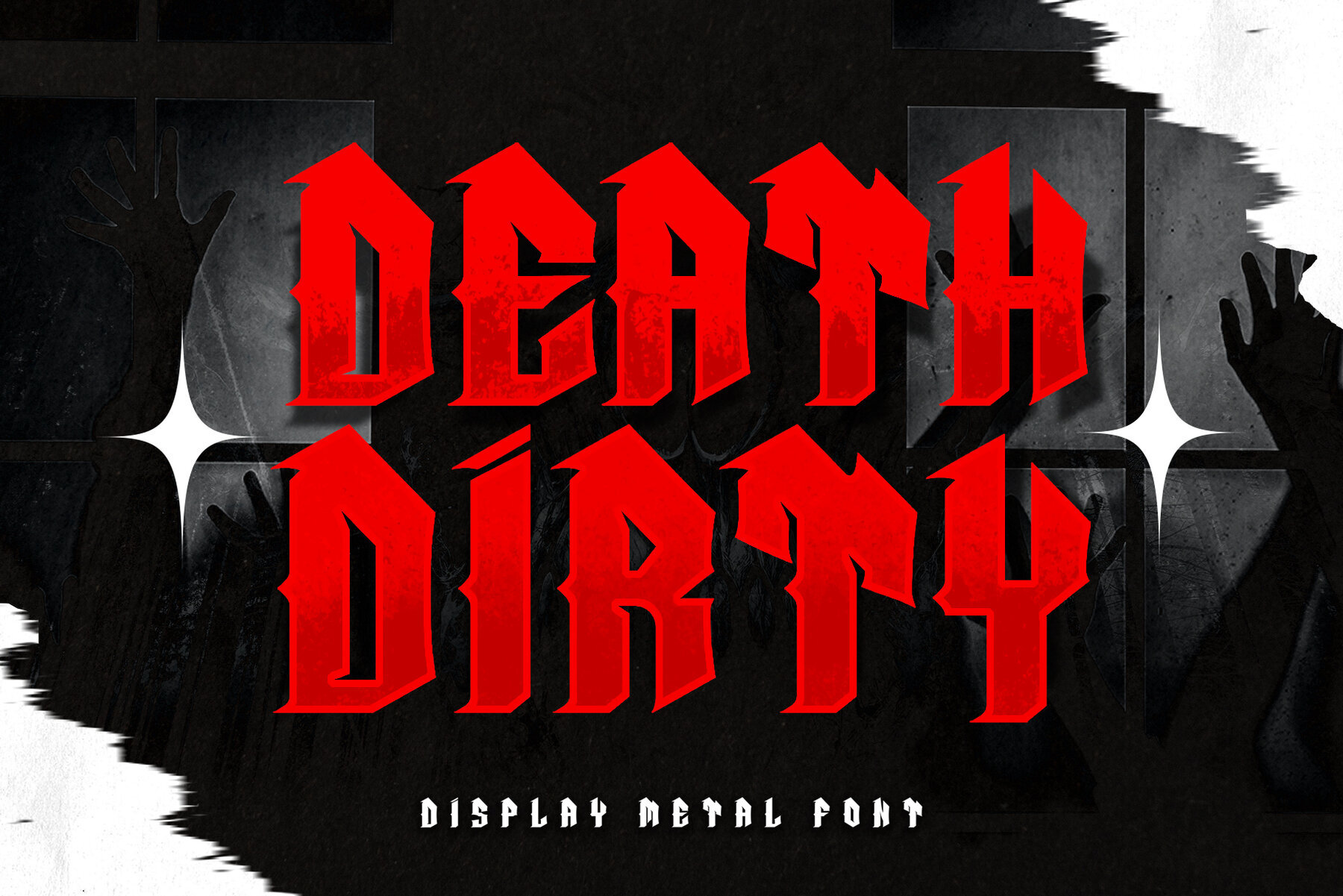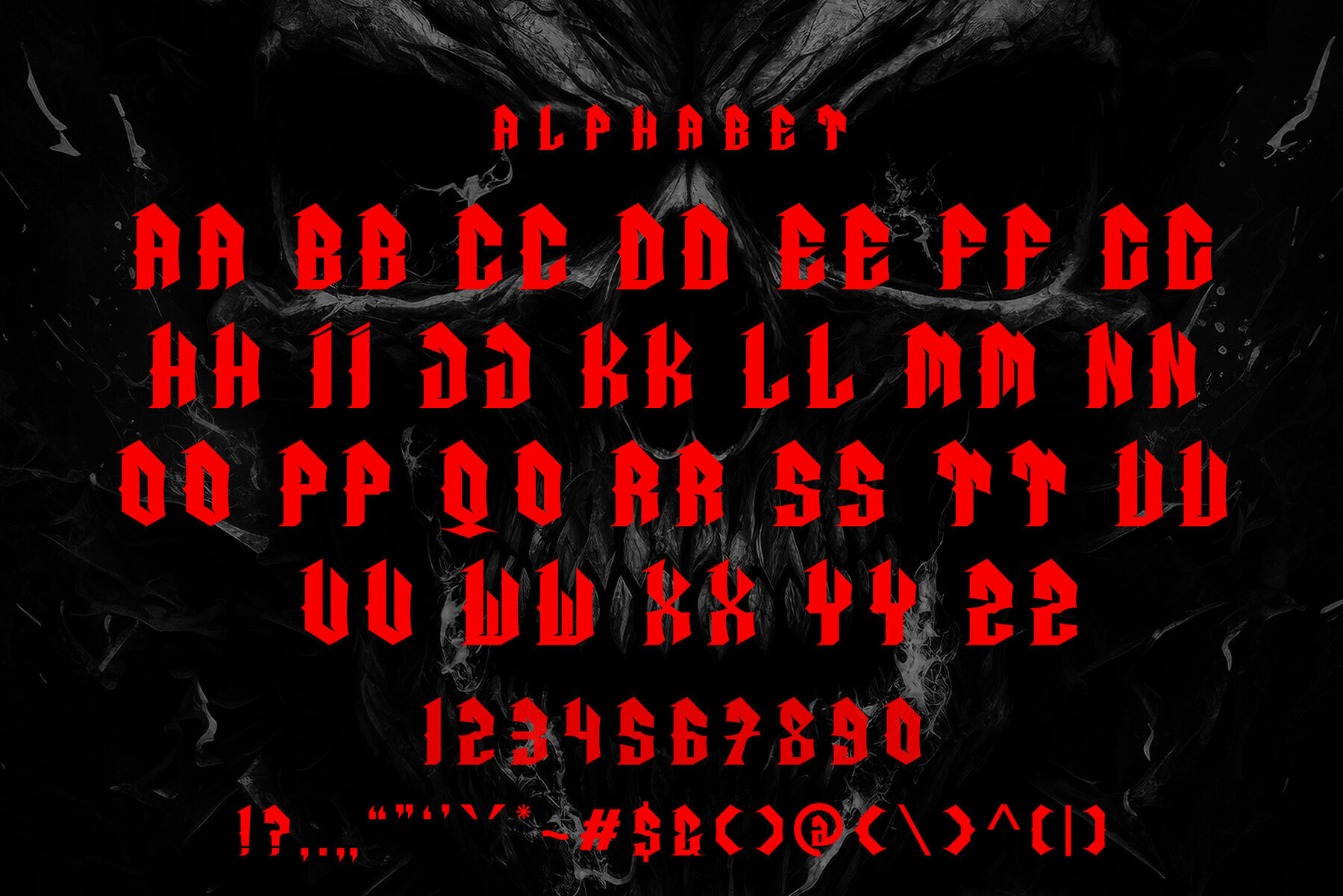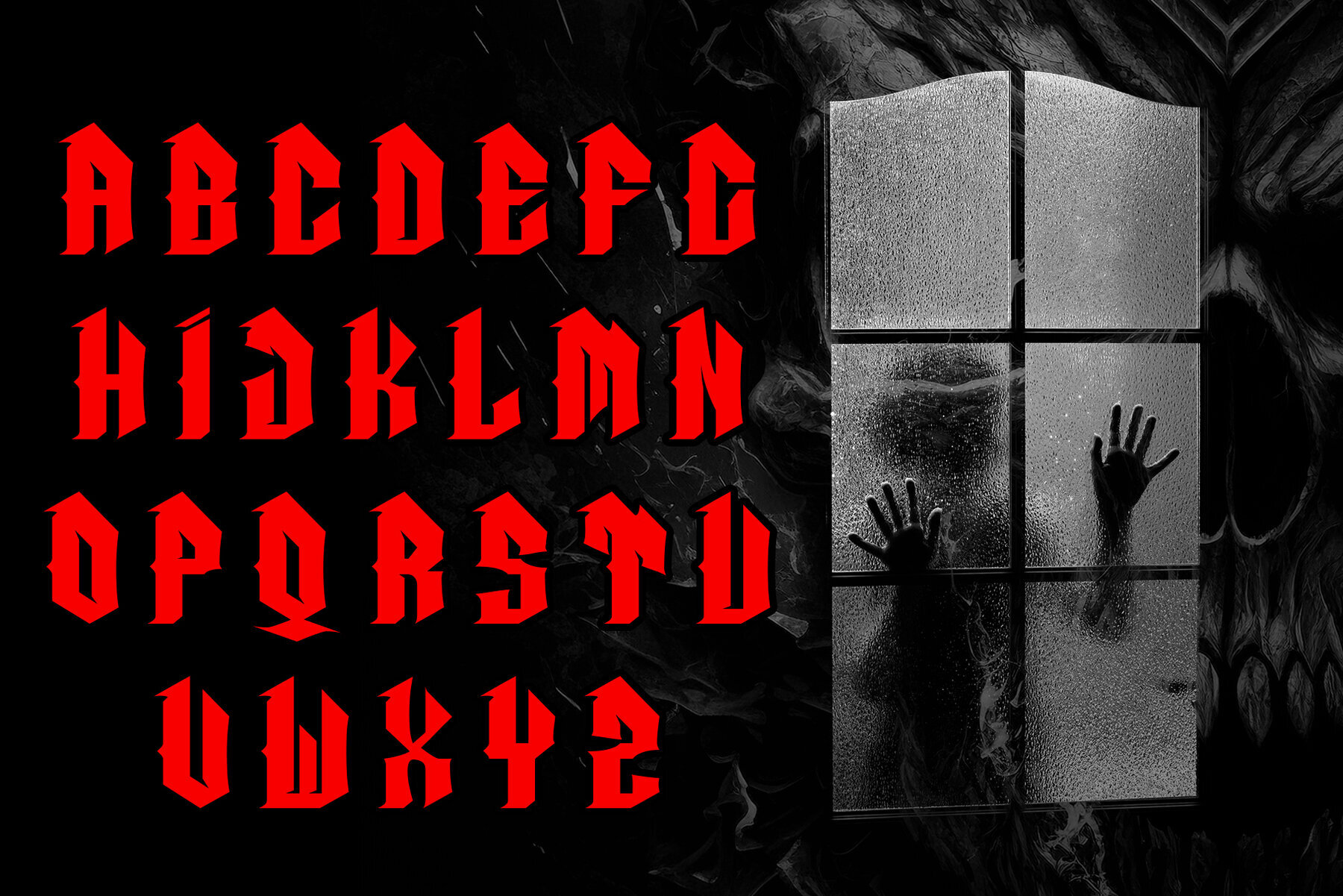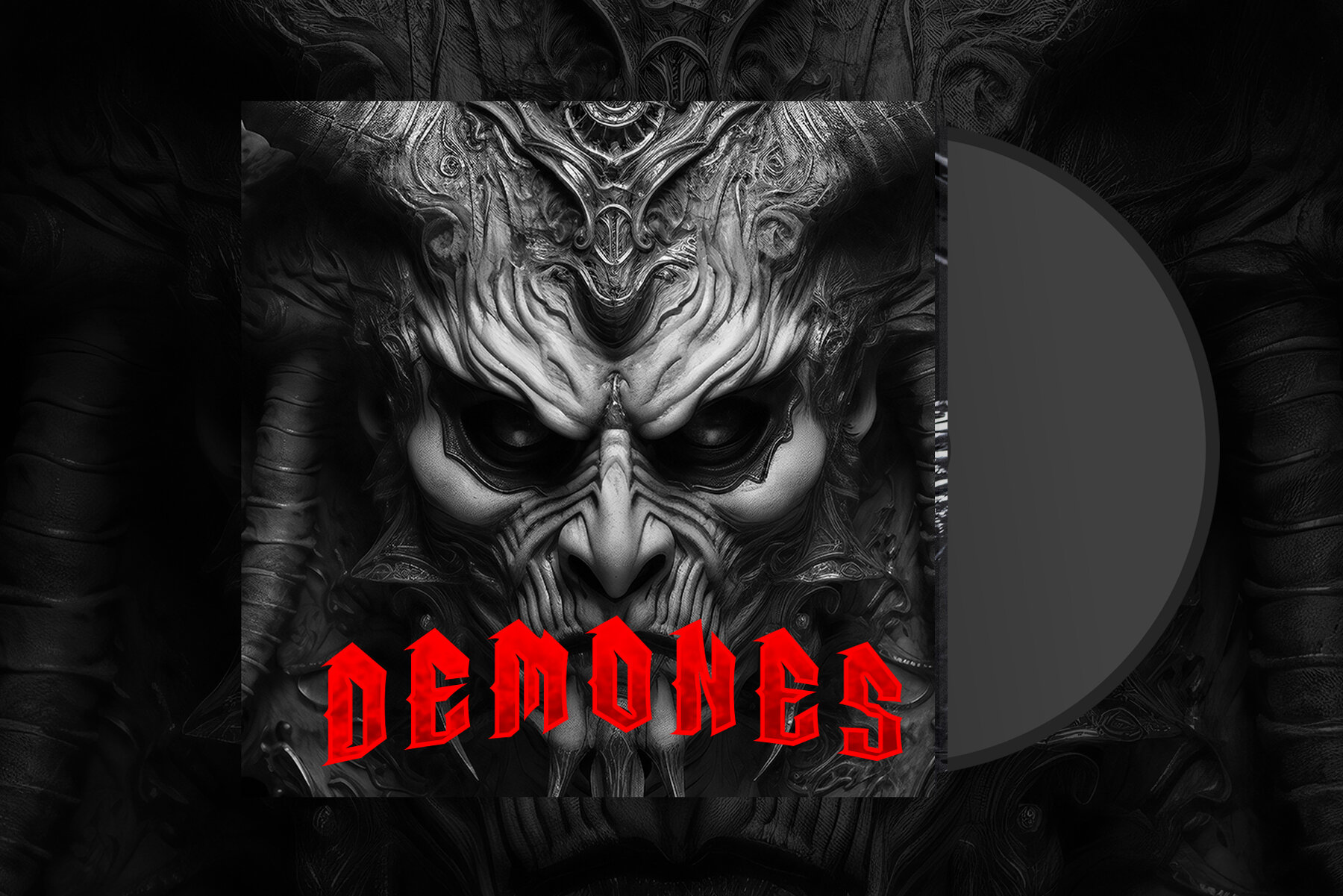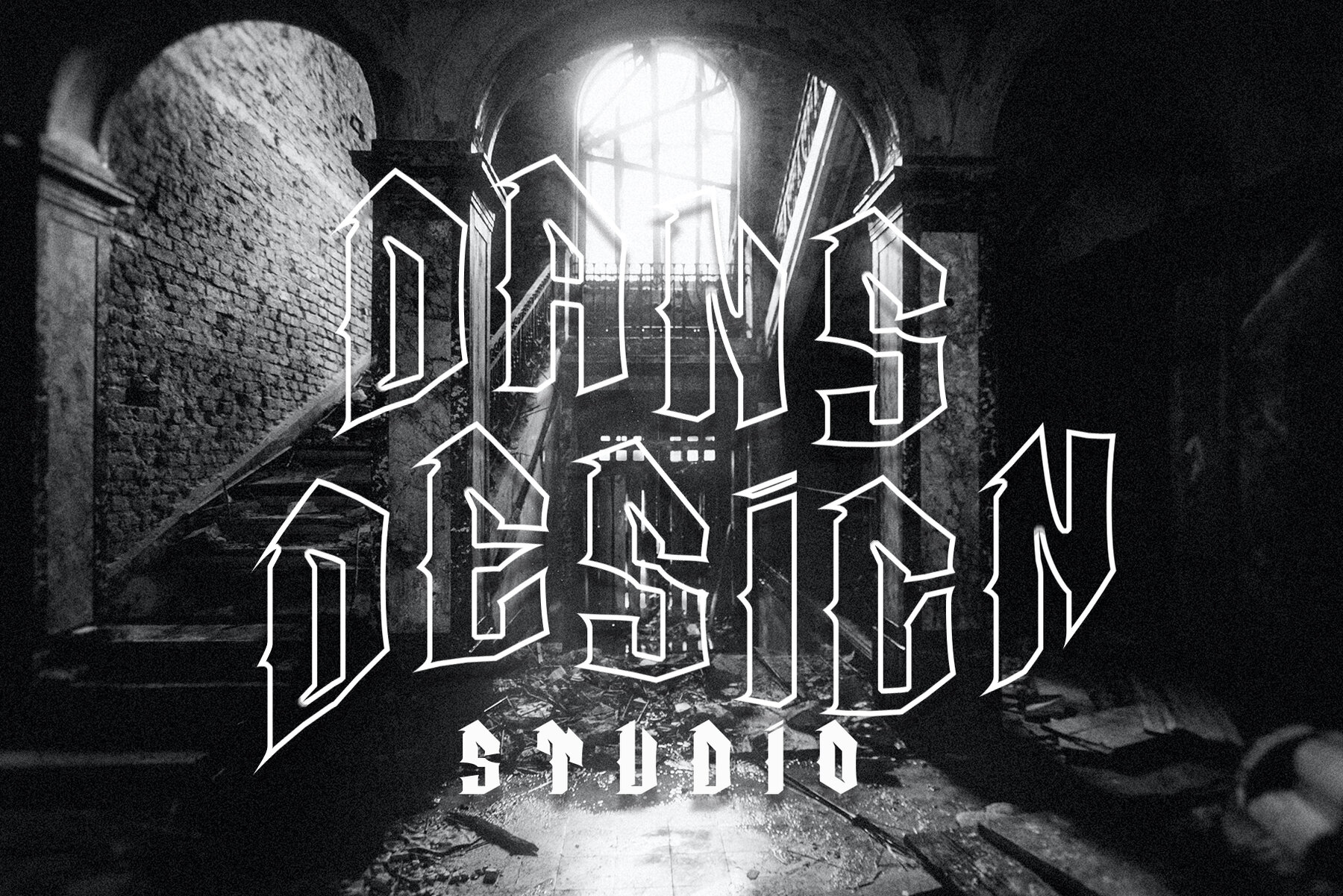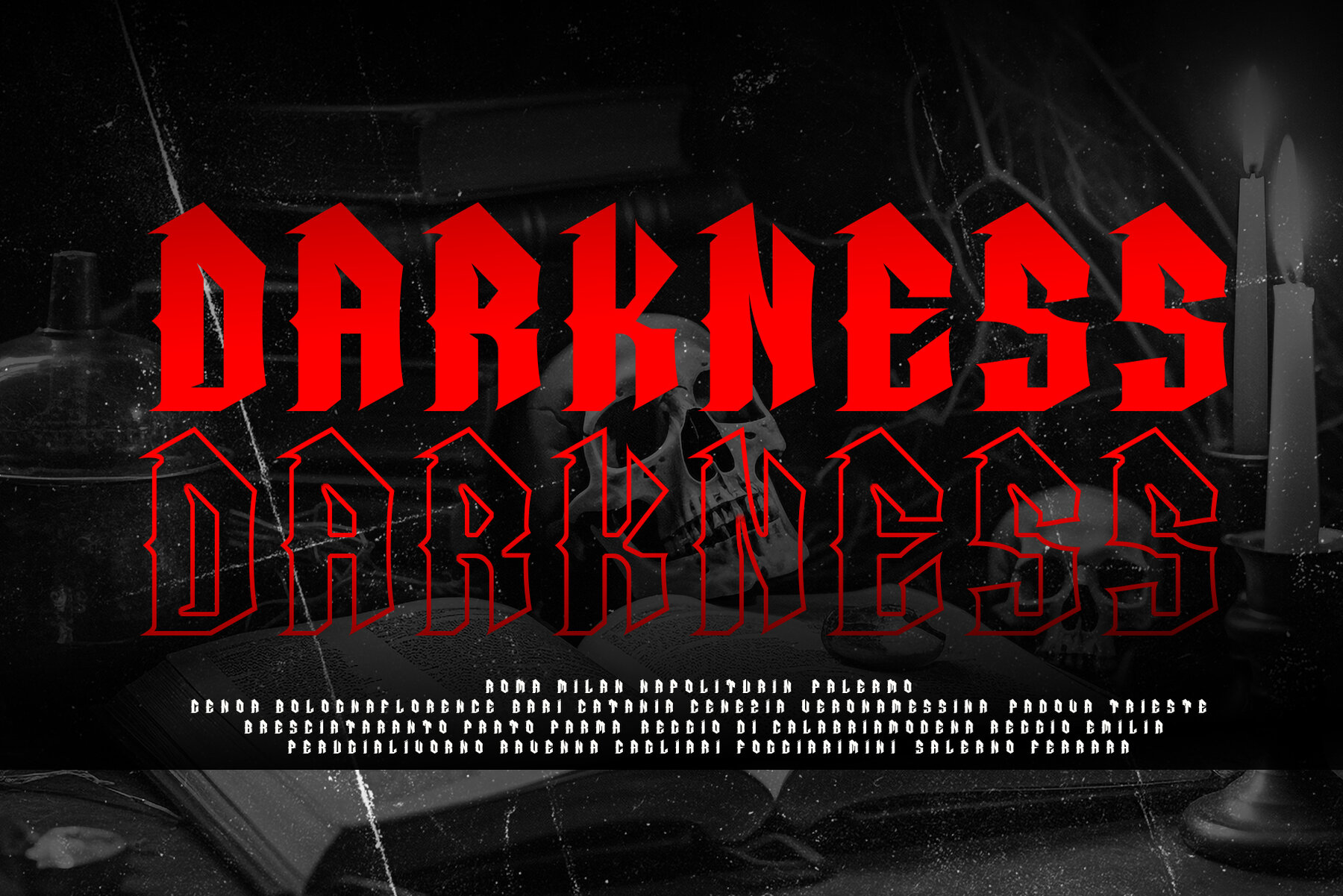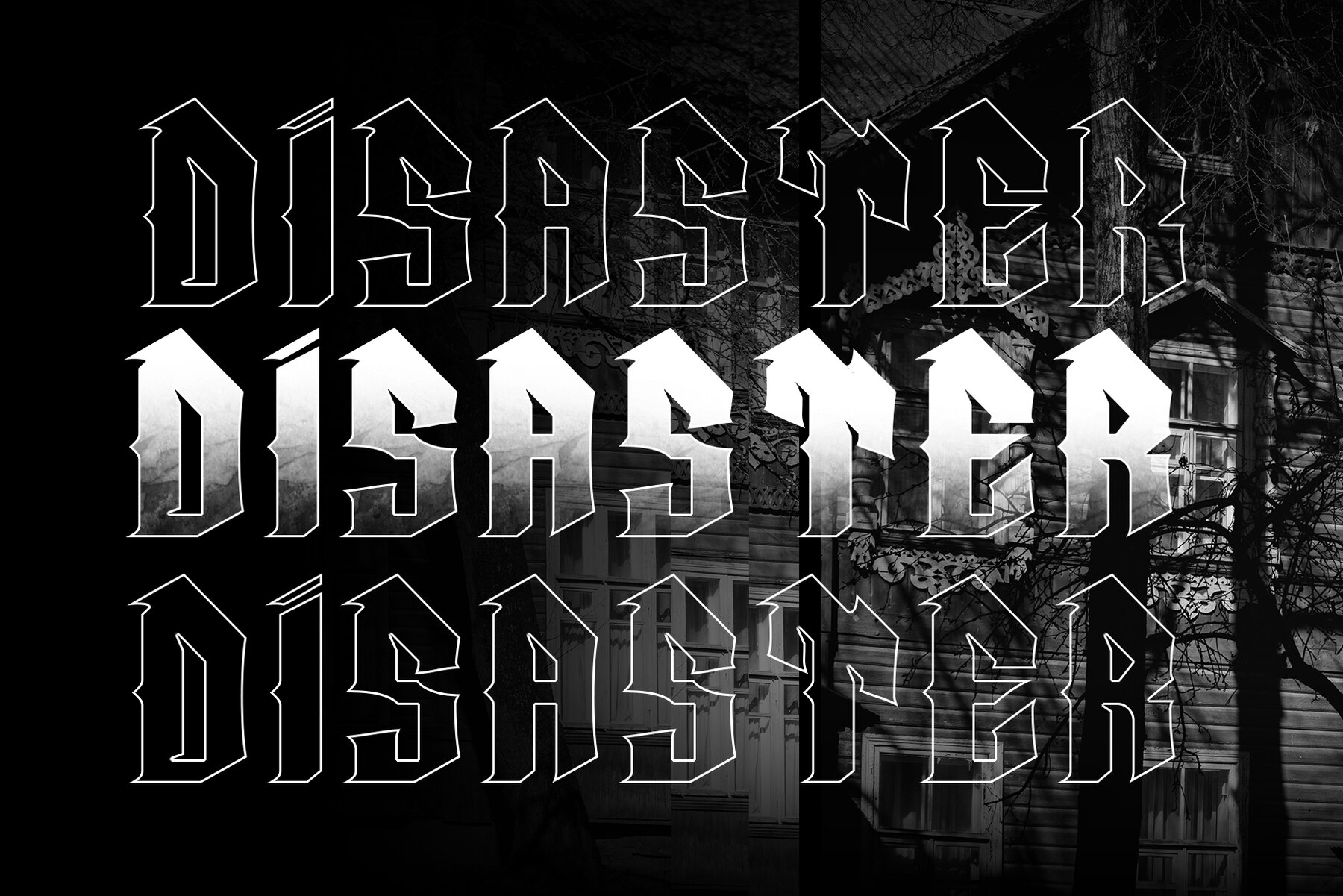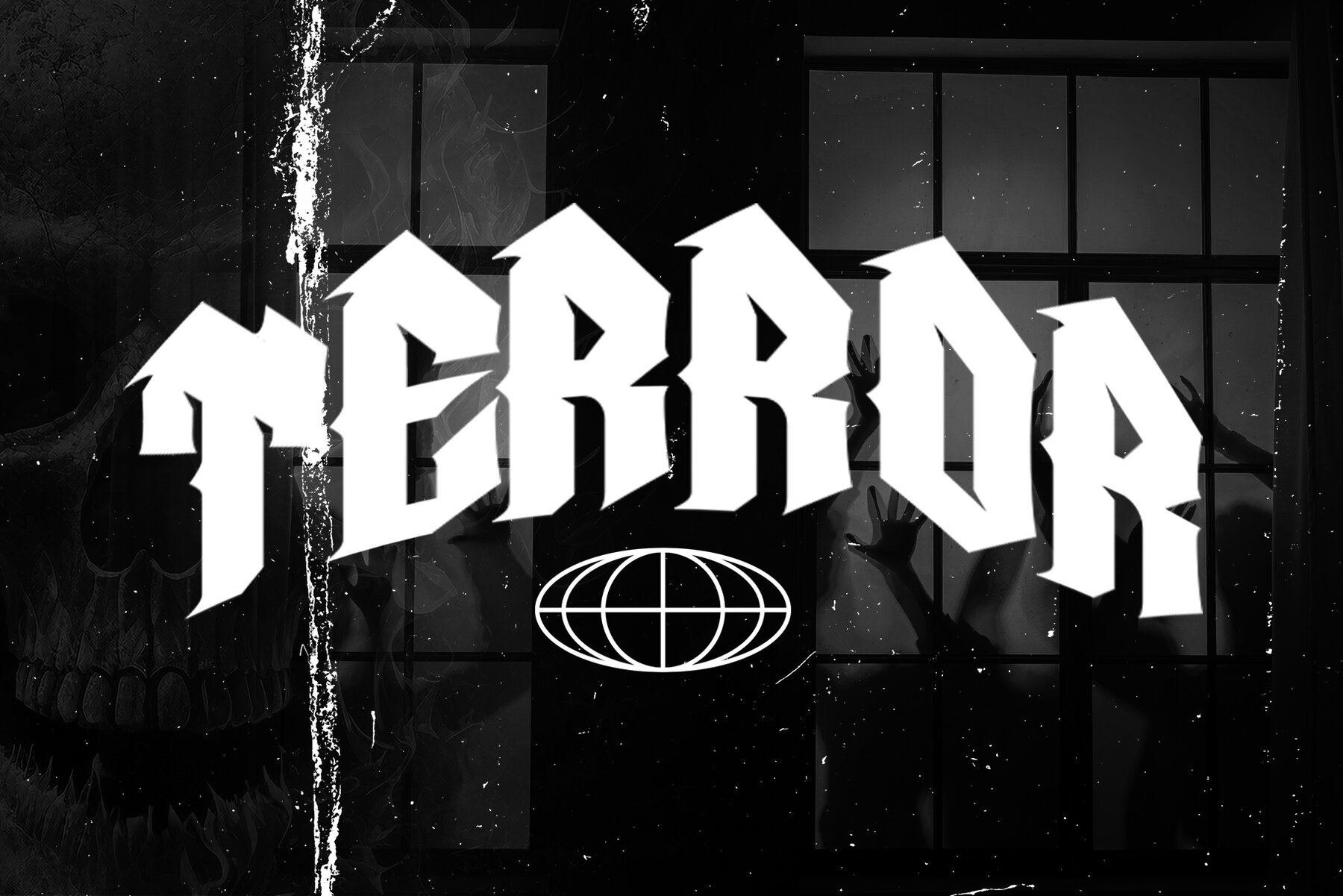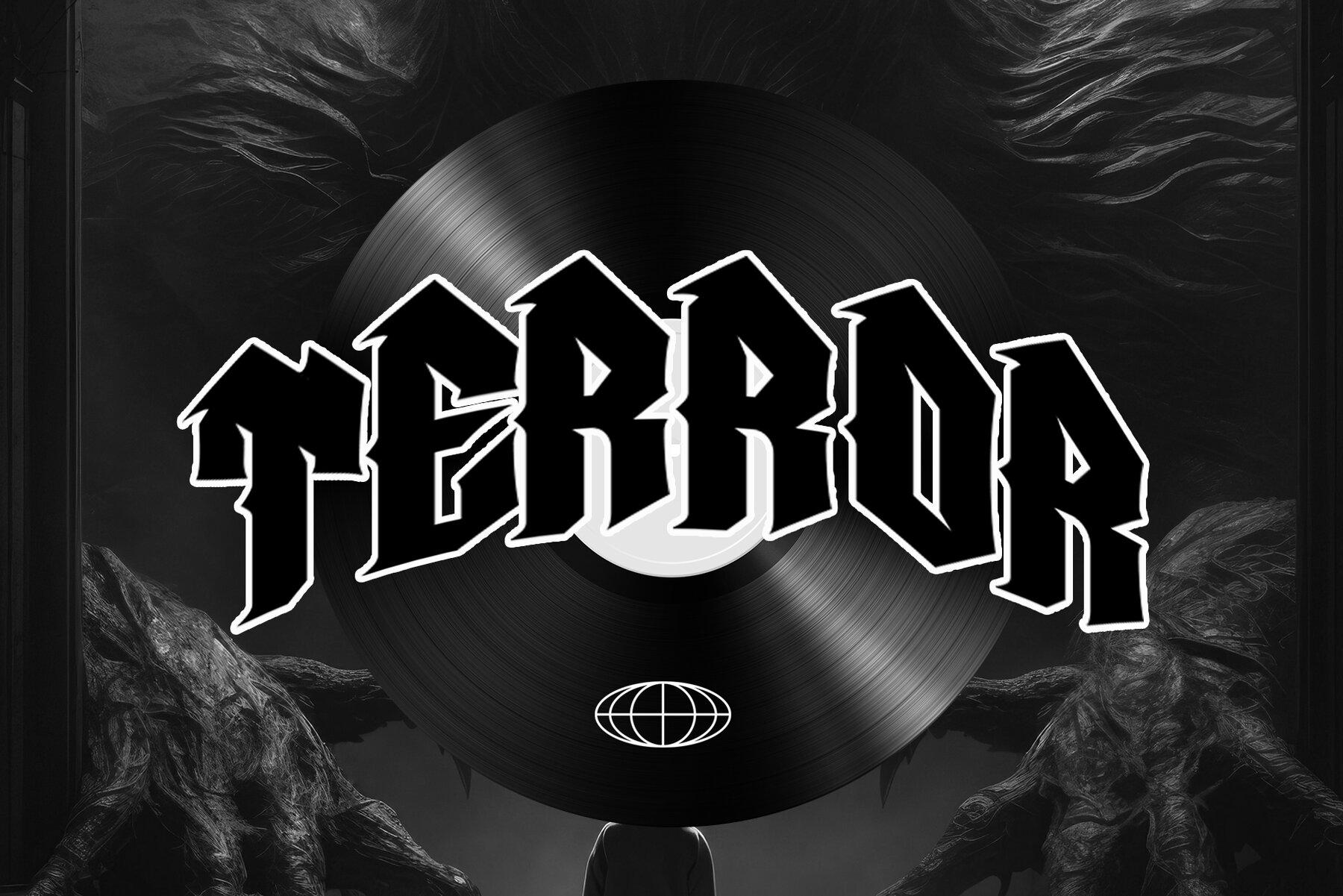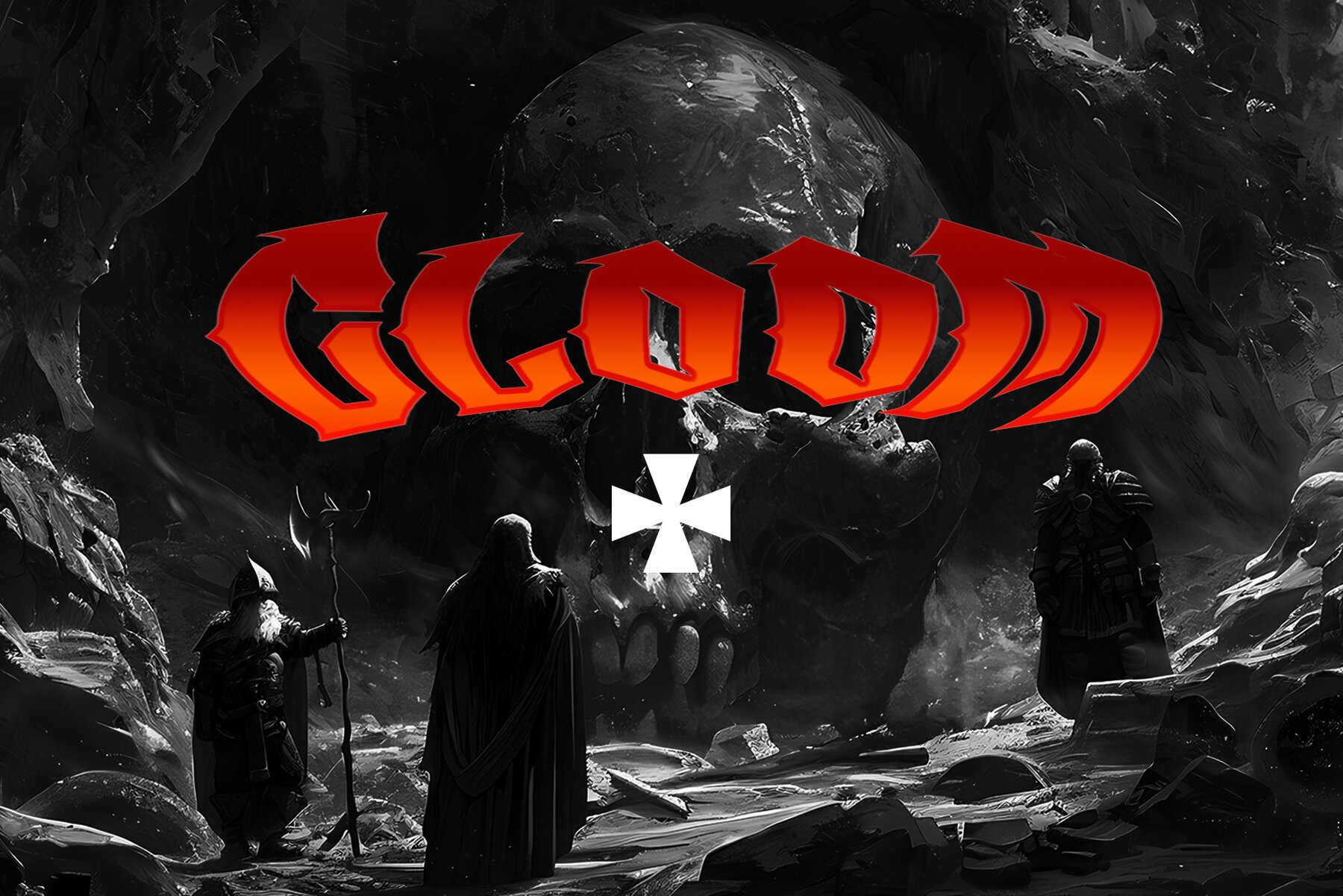
Death Dirty Font
DEATH DIRTY
Dive into the gritty world of urban design with Death Dirty Display Metal Font. This bold blackletter typeface from Dandesign Studio blends modern graffiti with a horror-metal aesthetic. Its sharp details and raw energy make it ideal for metal band logos, music posters, tattoo branding, streetwear, retro-urban artwork, and vintage display projects. Infuse your designs with an authentic blackletter graffiti vibe that demands attention. Whether for print or digital media, Death Dirty Font adds a unique, hardcore edge to your projects. Bring the intensity, darkness, and urban metal energy to your next creative endeavor with Death Dirty Display Metal Font.Death Dirty Display Metal Font